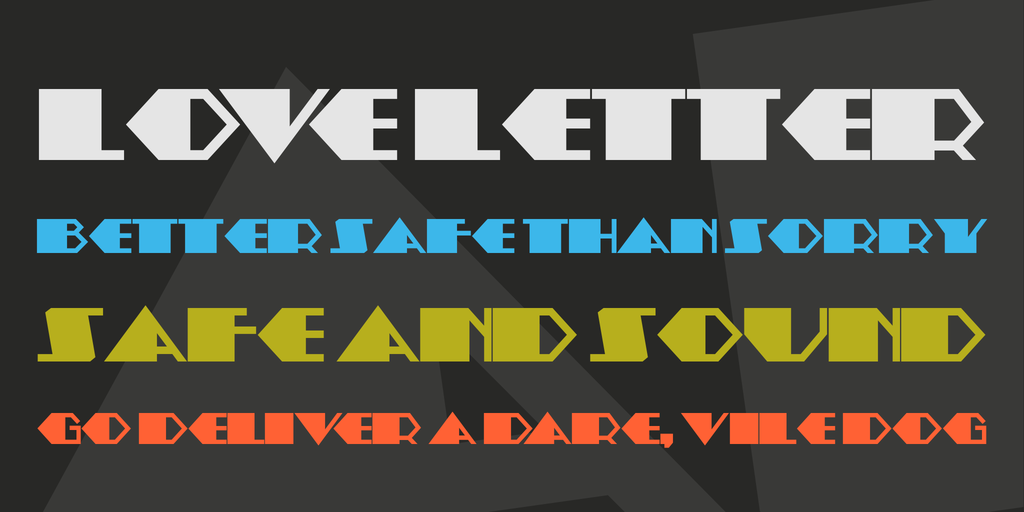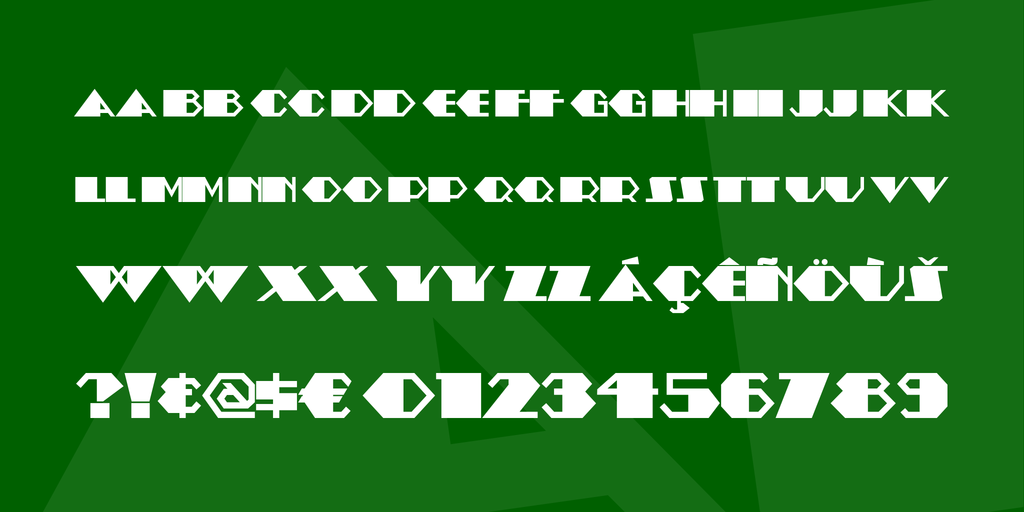
Amstel Heavy NF Font
One of the many kind folks (Sander de Voogt, to be precise) who steer me to good stuff steered me to a 1926 poster for a Dutch art exhibit, designed by G. J. Thieme, which used this unusual font. It may not be pretty, but it’s hard to ignore.